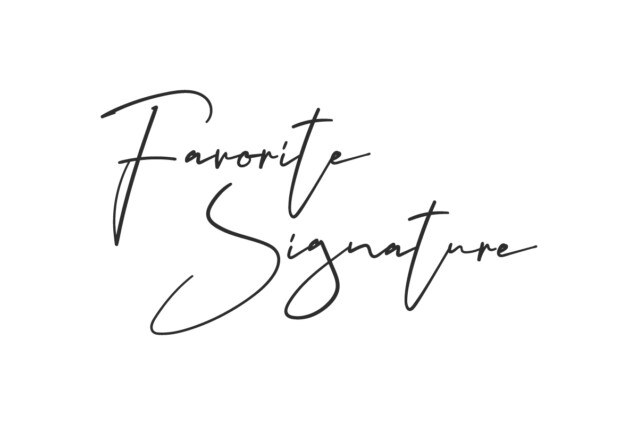
Favorite Signature Font
Favorite Signature Font is a beautiful handwritten font with a signature style. This typeface has the look of a thin monoline brush, keeping it neat and simple. It will attract and enhance your project, such as brand logo, brochure, business card, catalog, certificate, cover, embossed design, invitation, greeting cards, label, mockup, price tag, screen print, signage, signature, stationery, sticker, title, watermark, website, and many more!